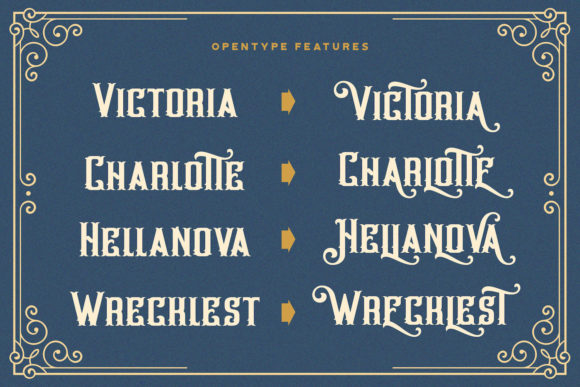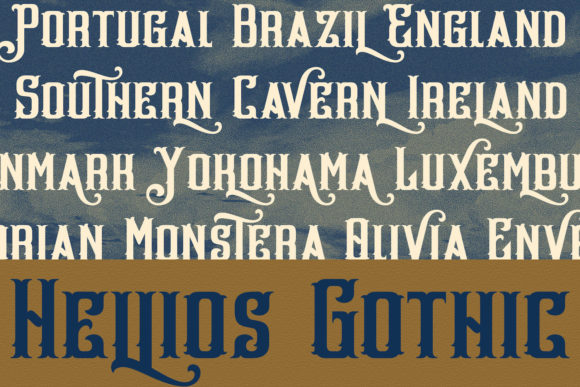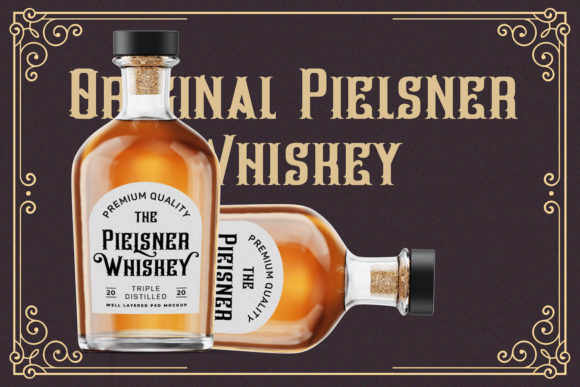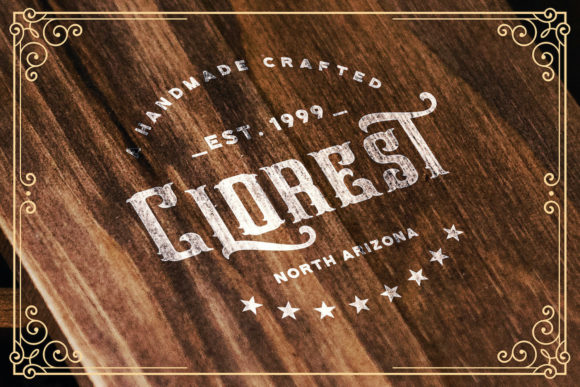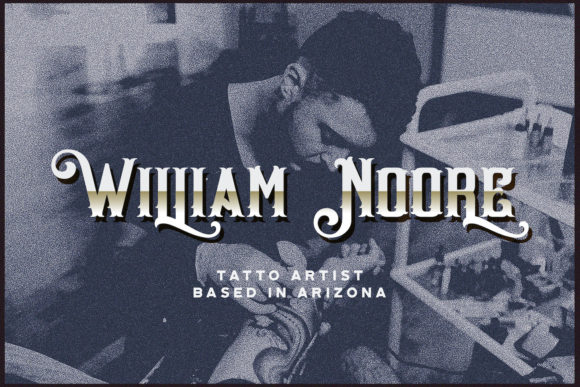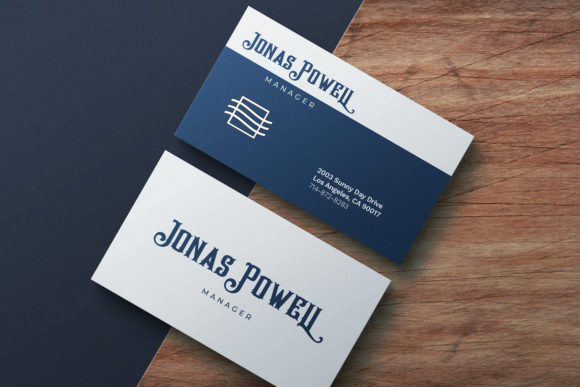
Unleash the Dark Elegance: Exploring the Hellios Gothic Font
In the realm of typography, few fonts evoke the mystique and allure of the Victorian era as effectively as the Hellios Gothic font. This incredibly authentic and daring blackletter font is a masterpiece of modern design, drawing inspiration from the ornate and intricate lettering that characterized the 19th century. Whether you’re a designer looking to add a touch of gothic elegance to your projects or a crafter seeking to elevate your brand with a unique aesthetic, Hellios Gothic is poised to become your go-to typeface.
The Essence of Hellios Gothic
Hellios Gothic is more than just a font; it’s an experience. Its roots in Victorian-era typography lend it an air of mystery and sophistication, making it perfect for projects that demand a bit of drama and flair. From the elaborate swirls and serifs to the bold, imposing strokes, every element of Hellios Gothic has been meticulously crafted to transport your designs back in time to an era of opulence and grandeur.
One of the standout features of Hellios Gothic is its versatility. While its gothic roots make it an obvious choice for Halloween-themed projects, vintage branding, and spirit labels, its elegance and sophistication also lend themselves beautifully to more refined applications. Imagine adorning your exquisite apparel lines with labels that exude luxury and history, or elevating your vintage product packaging to new heights of aesthetic appeal. The possibilities are endless, and Hellios Gothic proves to be an incredibly adaptable tool in the hands of creative professionals.
Applications of Hellios Gothic
- Spirits Labels: Give your craft spirits a label that tells a story. Hellios Gothic, with its vintage and mystical vibe, can add a compelling narrative to your bottles, making them stand out on the shelves.
- Vintage Product Packaging: For those looking to evoke a sense of nostalgia or heritage, Hellios Gothic can transform your product packaging into a visual journey through time.
- Exquisite Apparel: Whether it’s a fashion brand looking to make a statement with packaging or an individual designer crafting unique clothing lines, Hellios Gothic offers a typographic solution that’s both stylish and historically inspired.
- Stationery and Invitations: For weddings, anniversaries, or any event that calls for a touch of elegance and mystery, stationery and invitations set in Hellios Gothic are sure to leave a lasting impression.
Why Choose Hellios Gothic?
In a world where fonts are plentiful and design trends come and go, Hellios Gothic stands out for several reasons:
- Authenticity: It captures the essence of Victorian-era blackletter fonts with remarkable accuracy, offering an authentic aesthetic that’s hard to find in modern fonts.
- Legibility: Despite its ornate appearance, Hellios Gothic maintains a surprising level of legibility, making it suitable for both headlines and body text.
- Elegance: Its daring yet elegant design makes it a versatile choice for a wide range of projects, from the dramatic to the refined.
Hellios Gothic is not just a font; it’s a design statement. It’s for those who dare to be different, who appreciate the beauty in the bold and the ornate, and who understand the power of typography in crafting an aesthetic. Whether you’re a seasoned designer or a passionate crafter, Hellios Gothic offers a world of creative possibilities. Embrace its dark elegance, and watch as your projects are transformed with a touch of Victorian mystique.